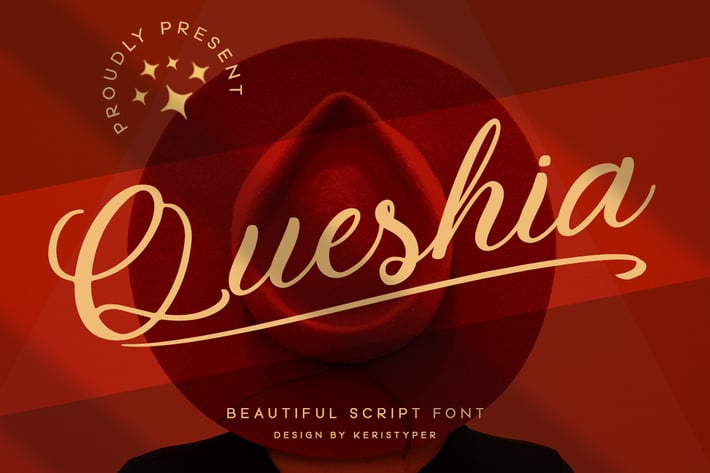
Queshia Font
Introducing Queshia font is a beautiful script specially made to look so natural. Created with an authentic, handwritten feel. It looks stunning on wedding invitations, thank you cards, quotes, greeting cards, logos, business cards and every other design which needs a handwritten touch.
Multilingual support:
Afrikaans, Albanian, Catalan, Danish, Dutch, English, Estonian, French, Finnish, German, Icelandic, Indonesian, Italian, Malay, Norwegian, Portuguese, Spanish, Swedish, Zulu, and many more.